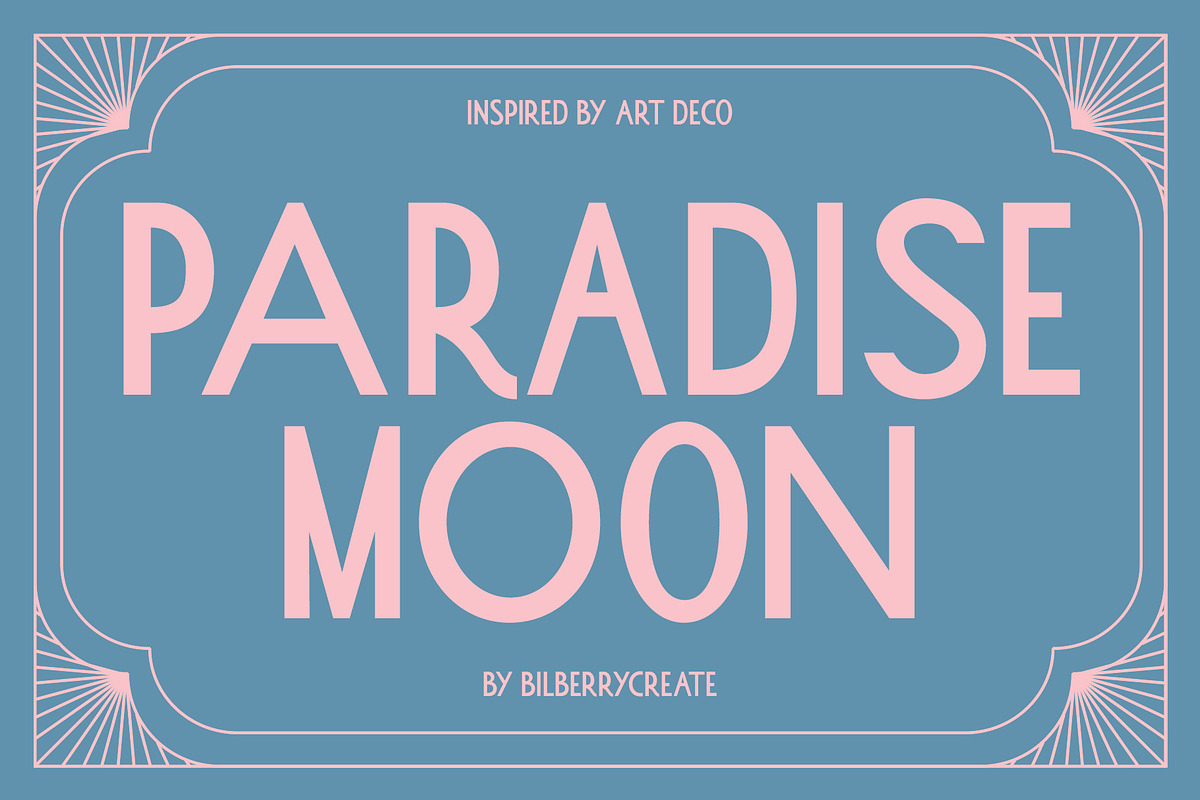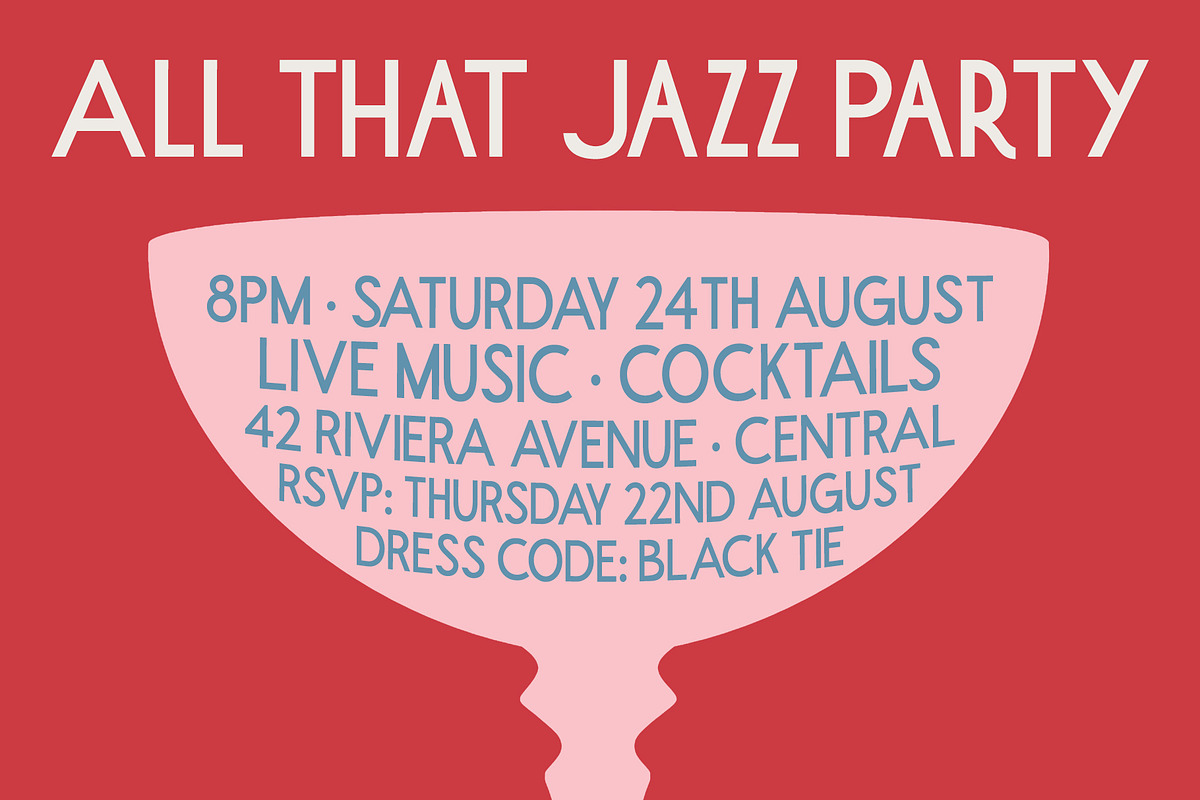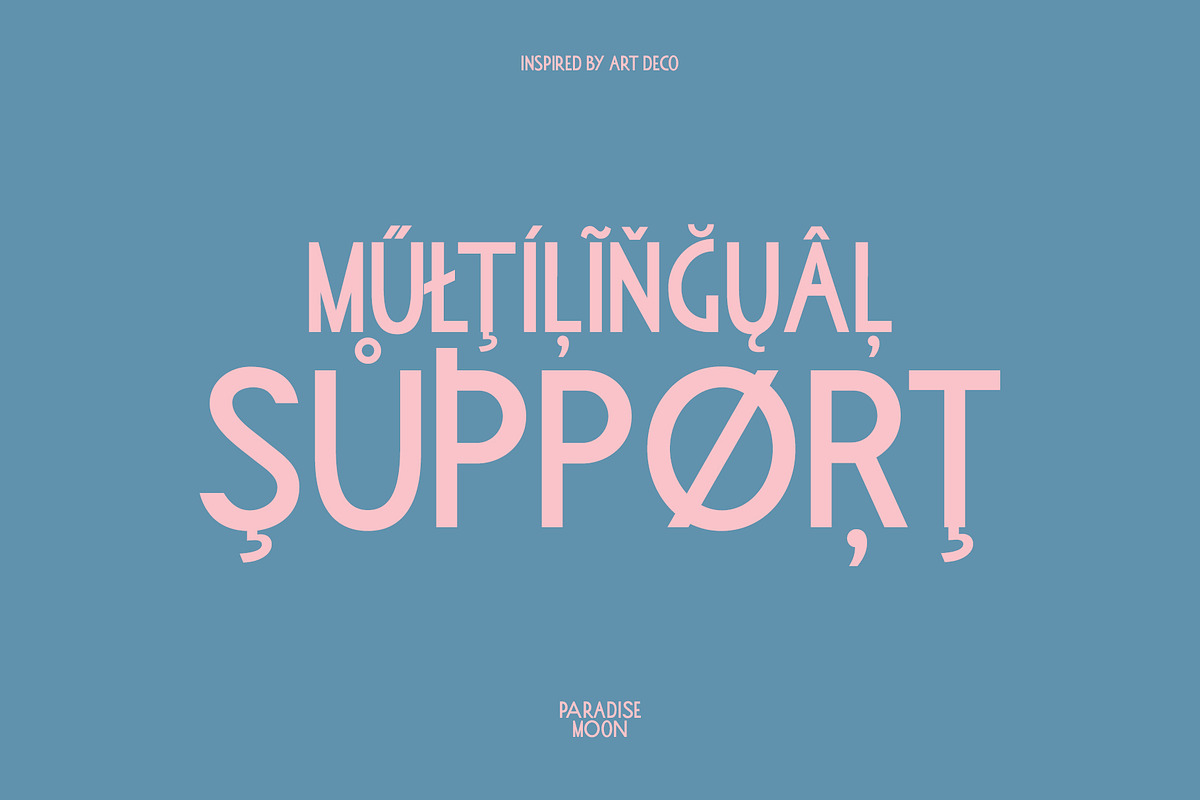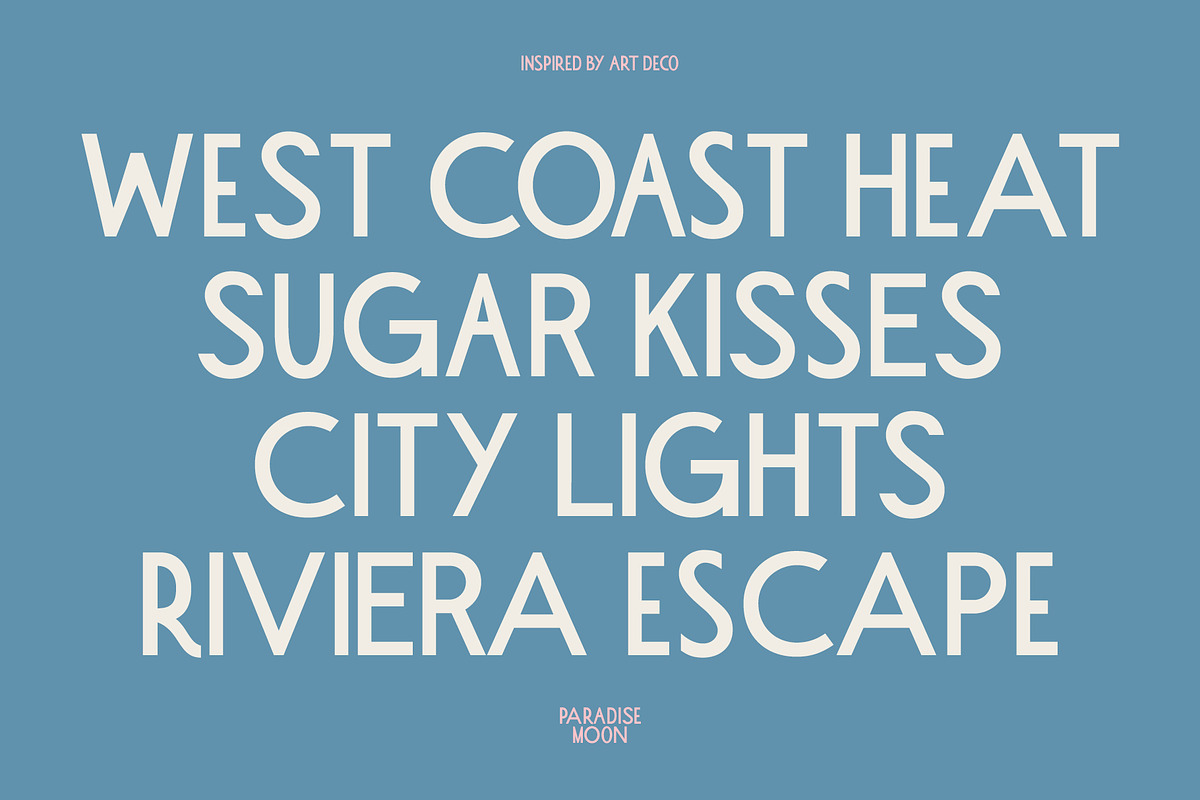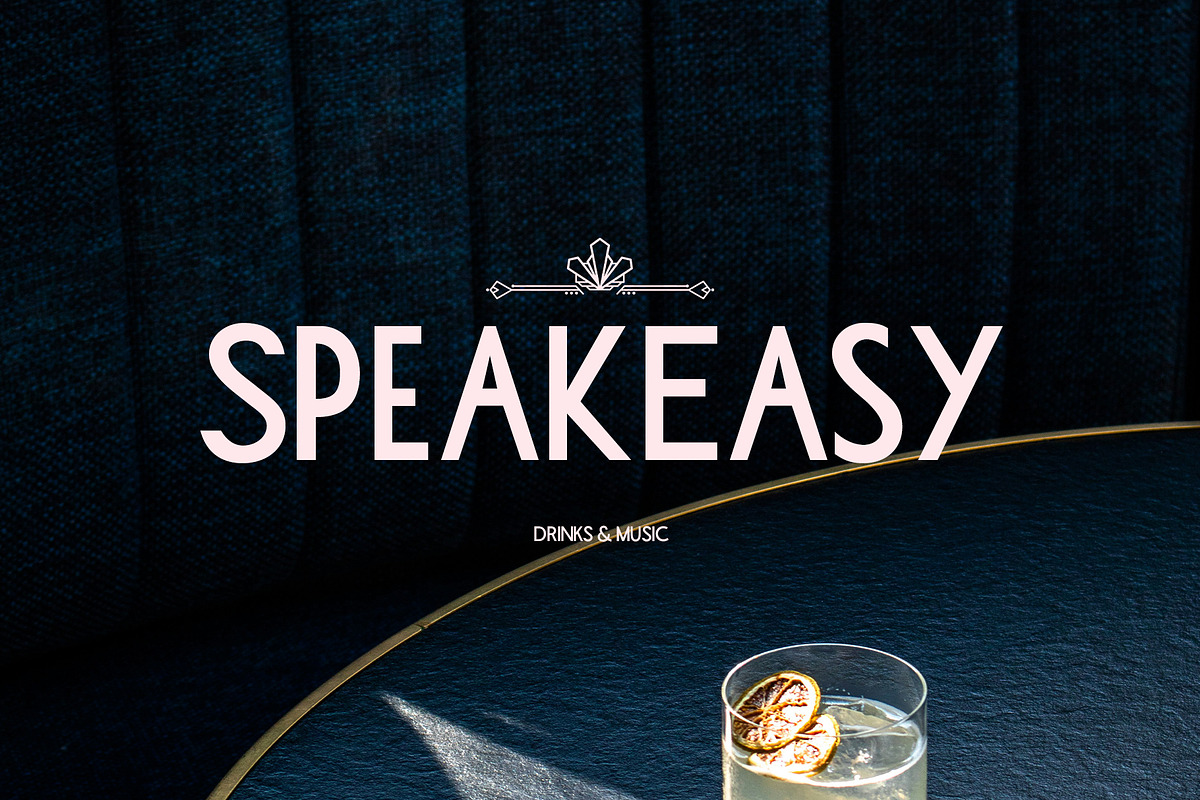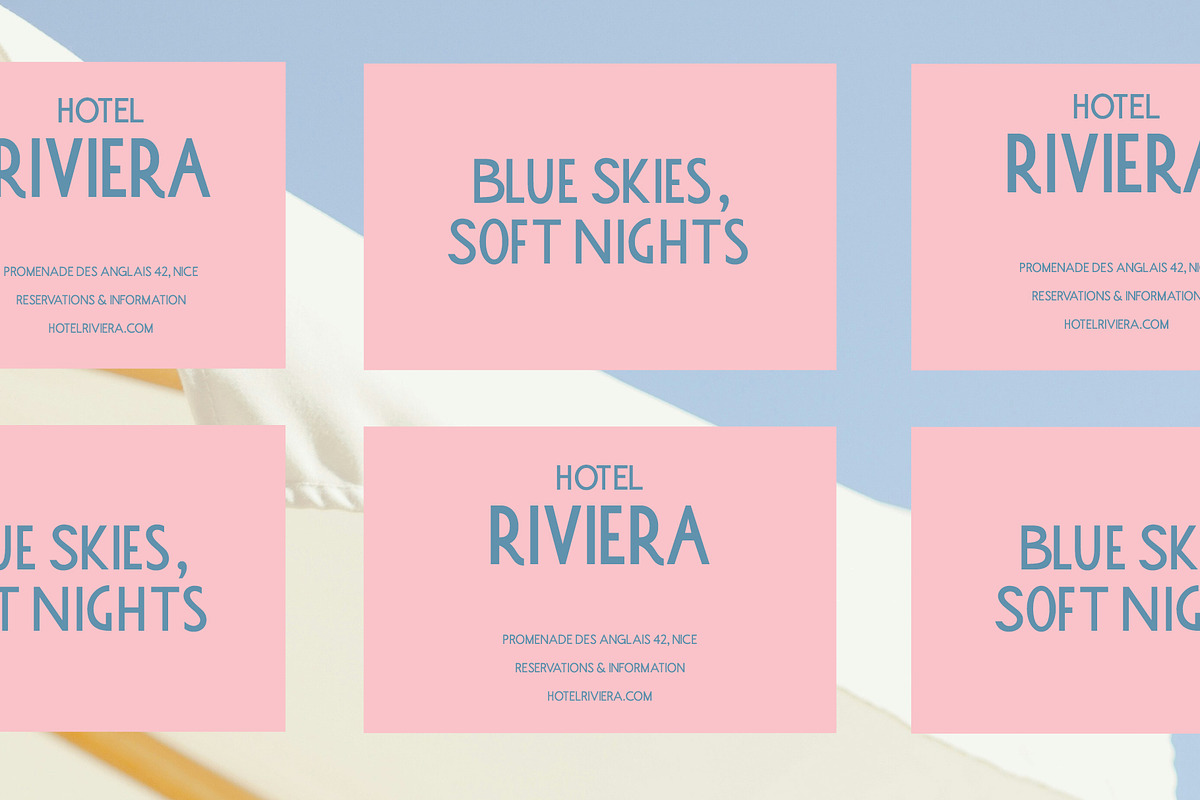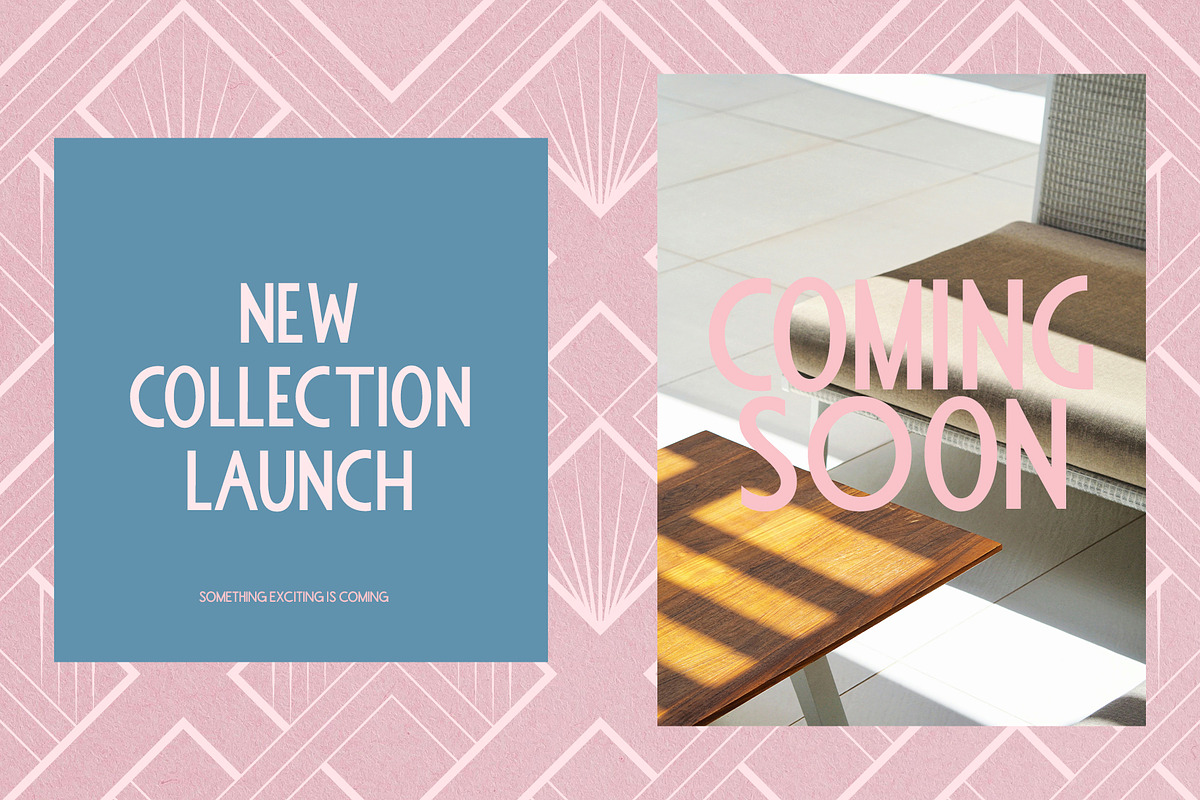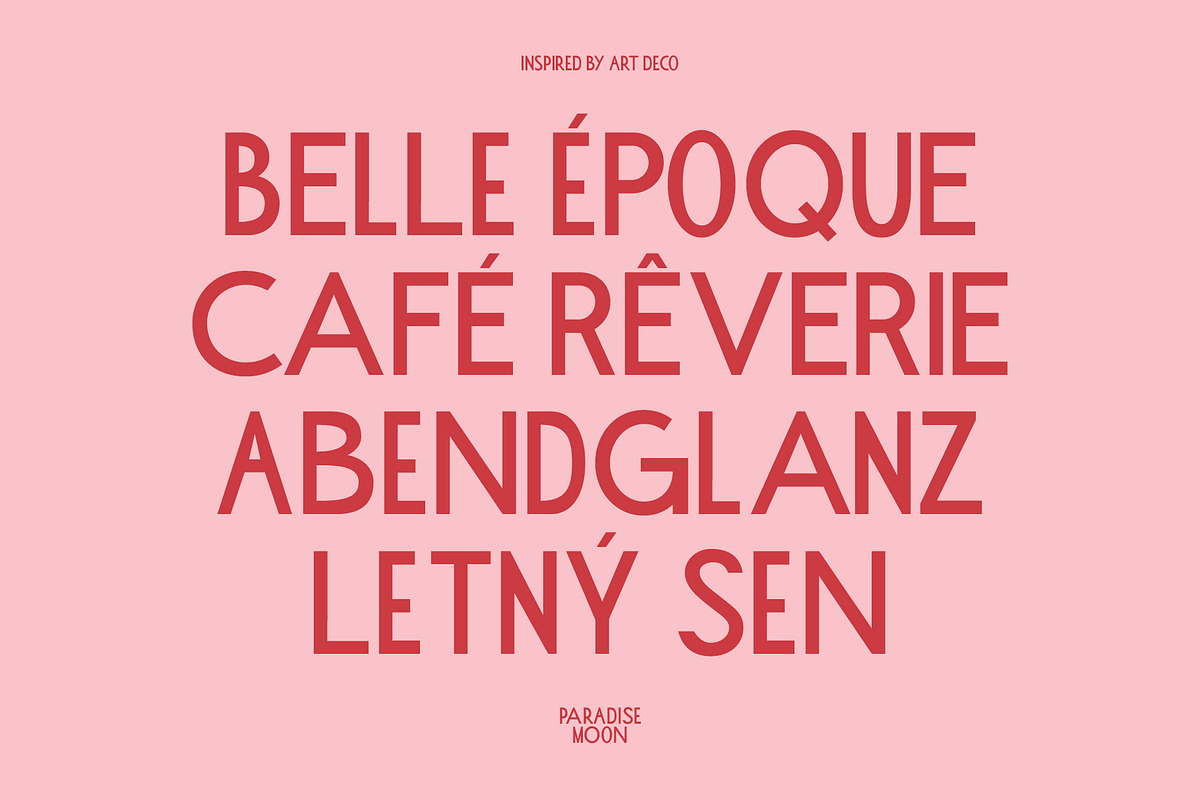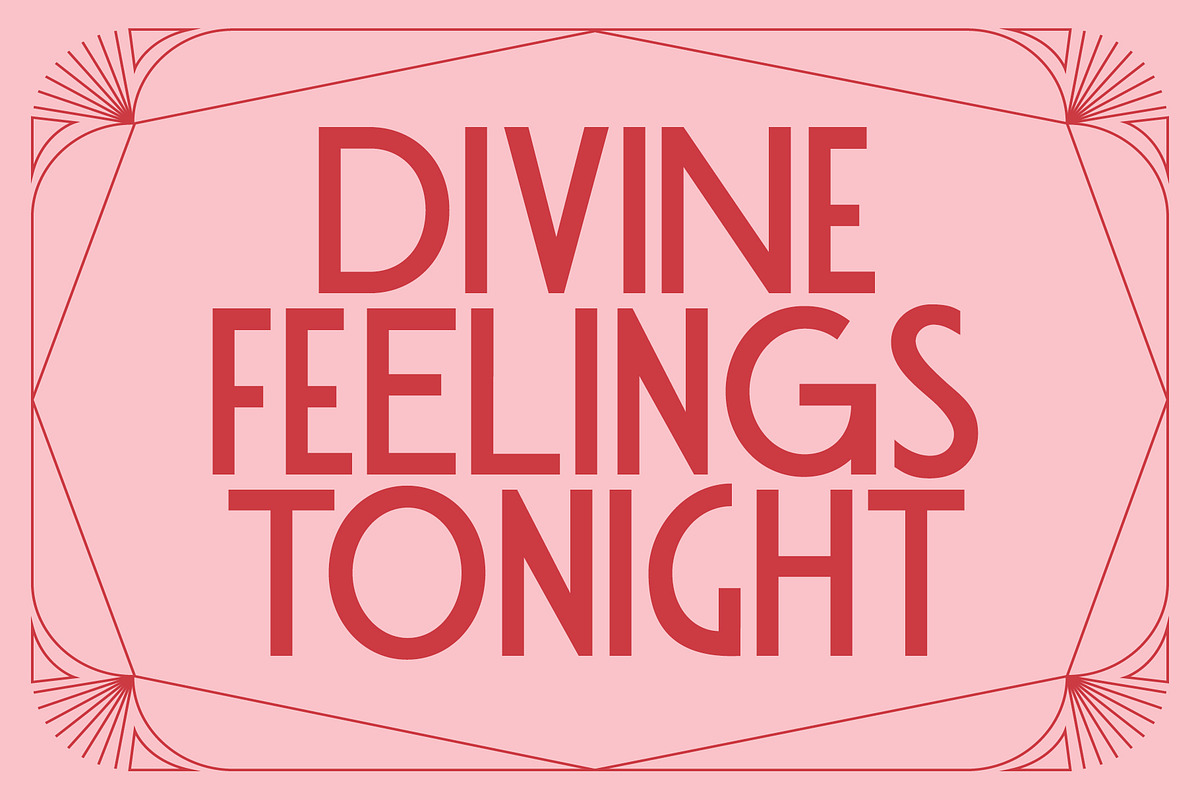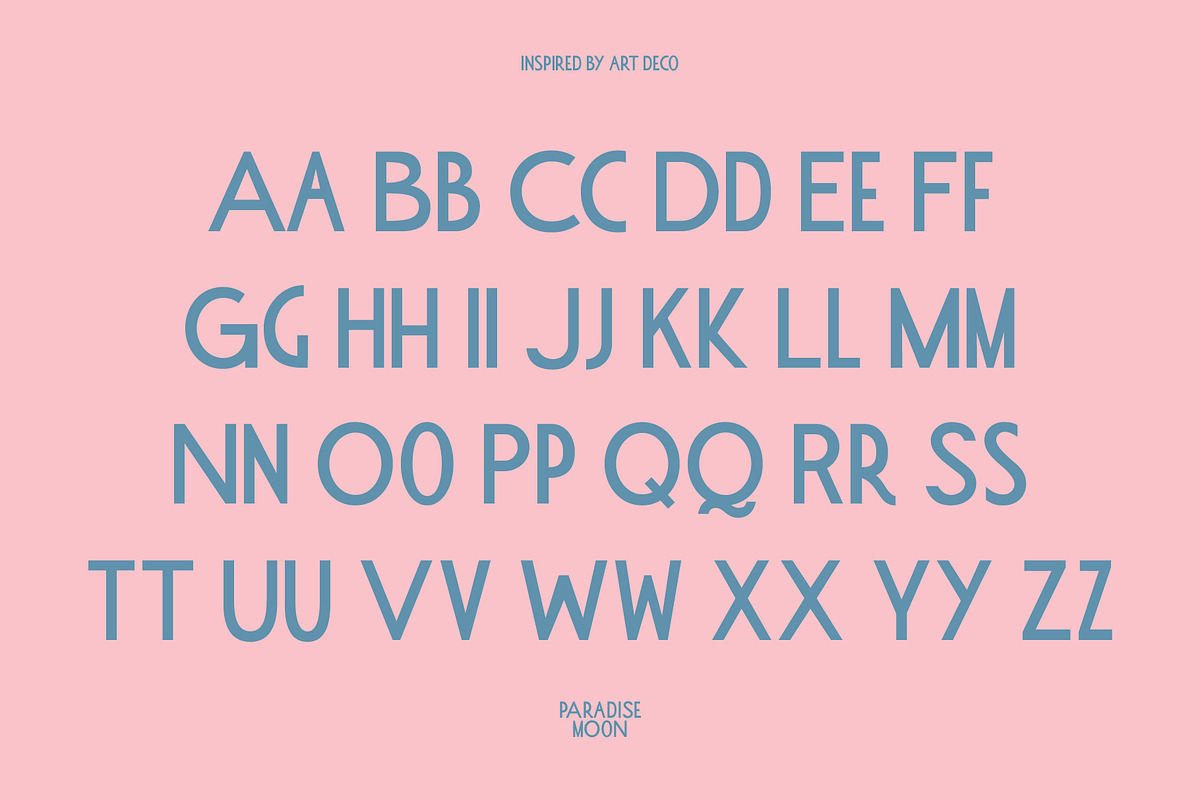
Paradise Moon l Art Deco Font
Paradise Moon is an elegant display typeface inspired by the geometry, glamour, and decorative style of the Art Deco era.
With its tall proportions, distinctive letterforms, and refined vintage character, Paradise Moon works beautifully for branding, posters, editorial design, packaging, invitations, menus, hotel identities, fashion projects, and statement typography.
The typeface includes uppercase and lowercase characters, numbers, punctuation, and multilingual support with a wide range of accented characters.
Designed to make a strong impression at large sizes while keeping a clean and sophisticated look.